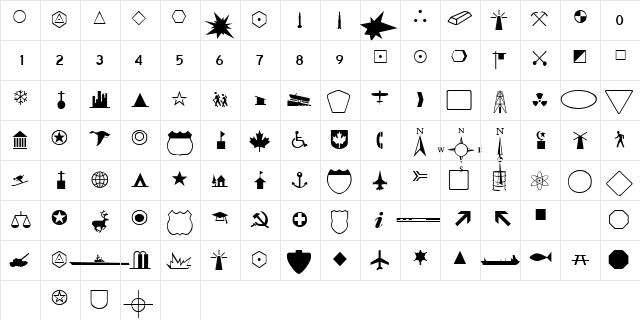
CANDACE Regular
Design Context for CANDACE Typeface
CANDACE takes a measured approach to typography — its balanced proportions and neutral character make it a reliable workhorse for both digital and print work.
Pro Tip: Pair CANDACE with a font of contrasting weight or personality to build a more expressive typographic hierarchy.